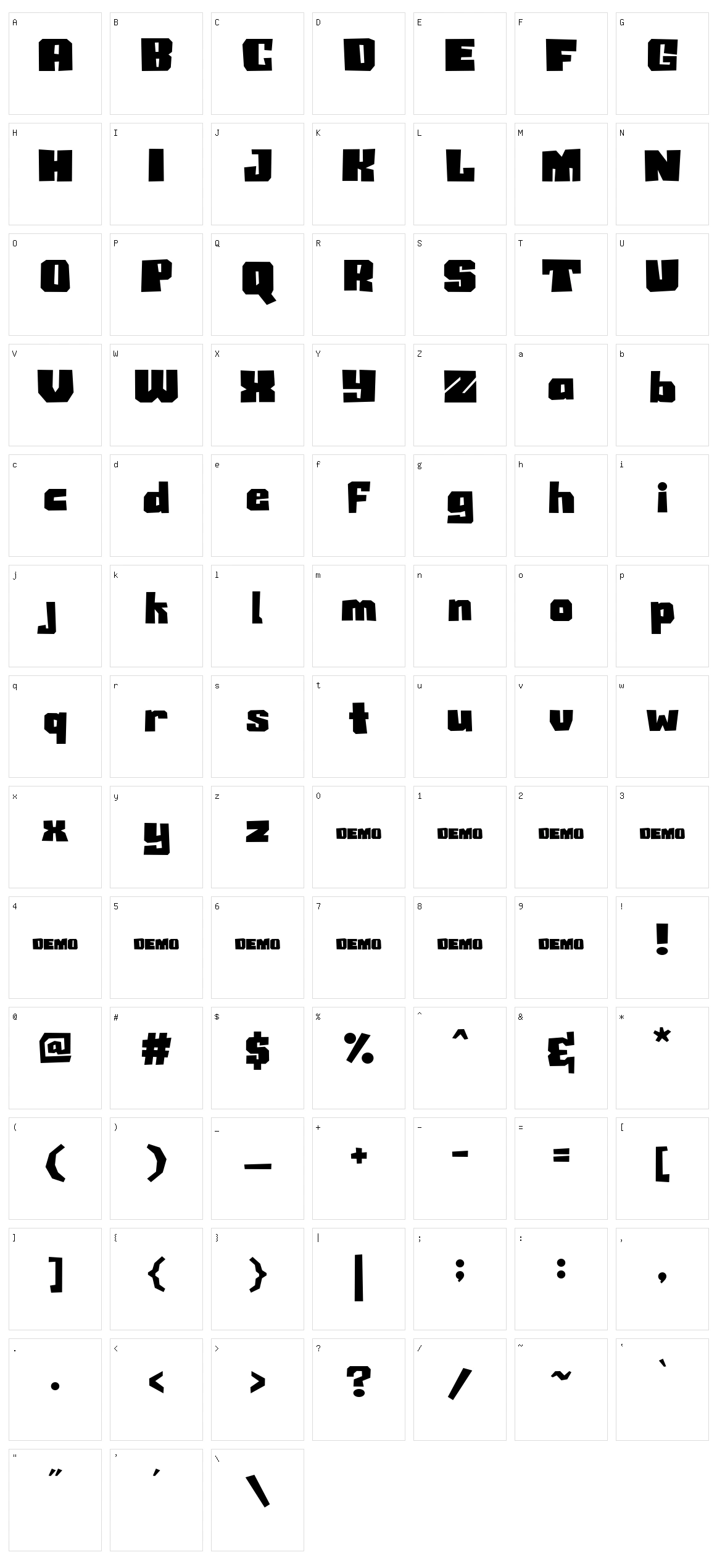
The free font Berm Creek is carefully designed by Sahirul Iman, showcasing a thoughtful balance of creativity and usability and falls under the Cartoon font style. When you download the ZIP file, it contains only 10.85 KB of font files, making it lightweight and quick to download. Please review the license details below to understand permitted usage and distribution rights. If license information is not available, we recommend using this font for personal projects only or contacting the author directly for commercial usage permissions.